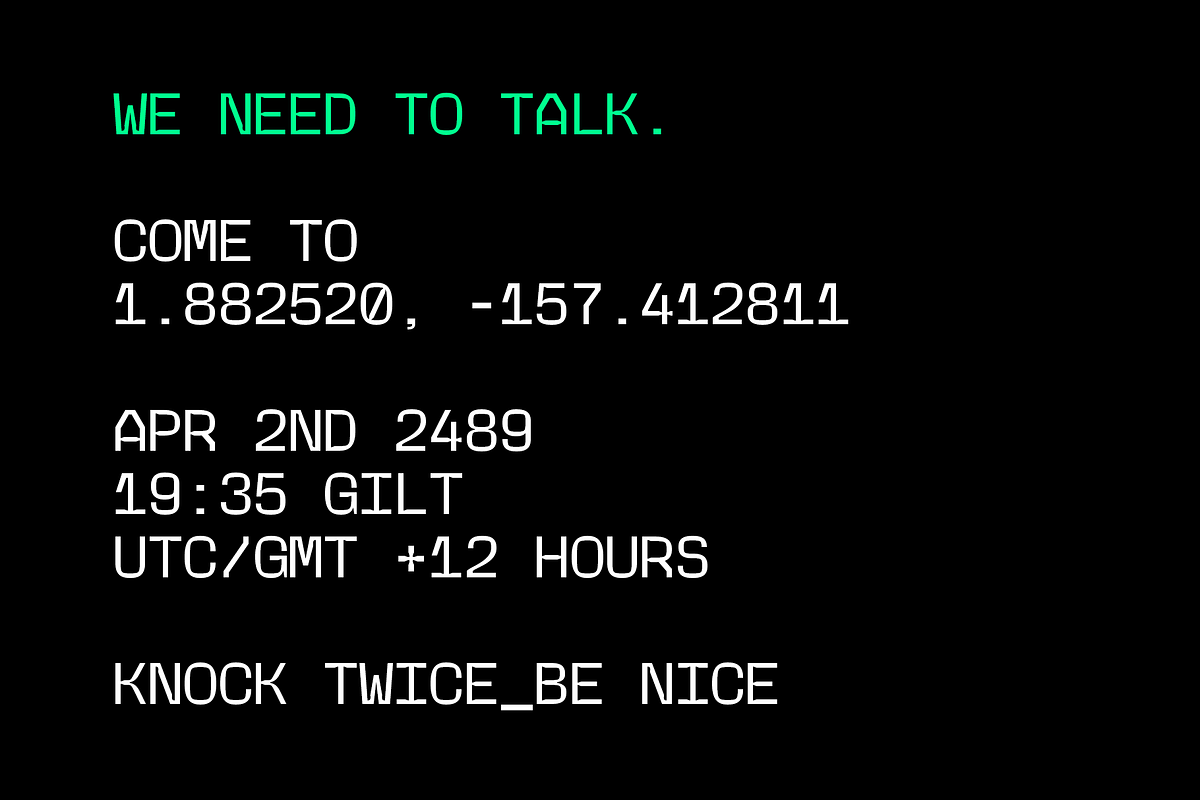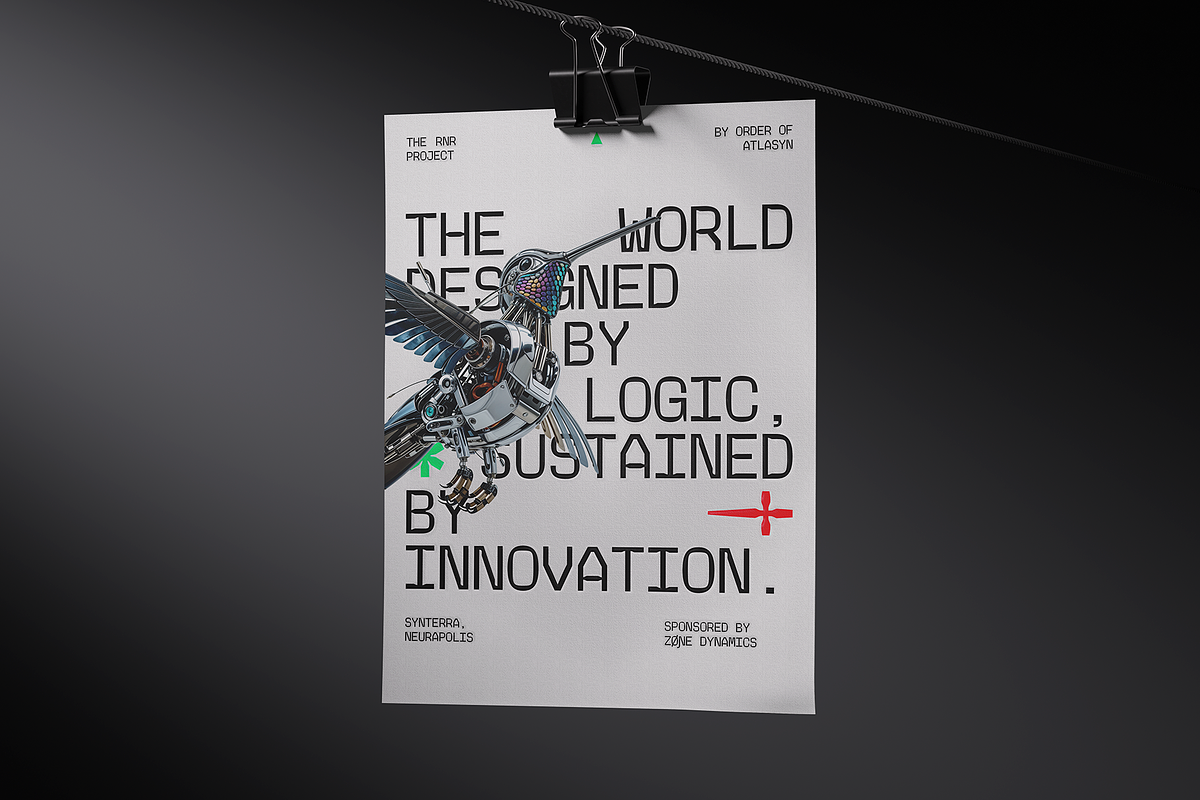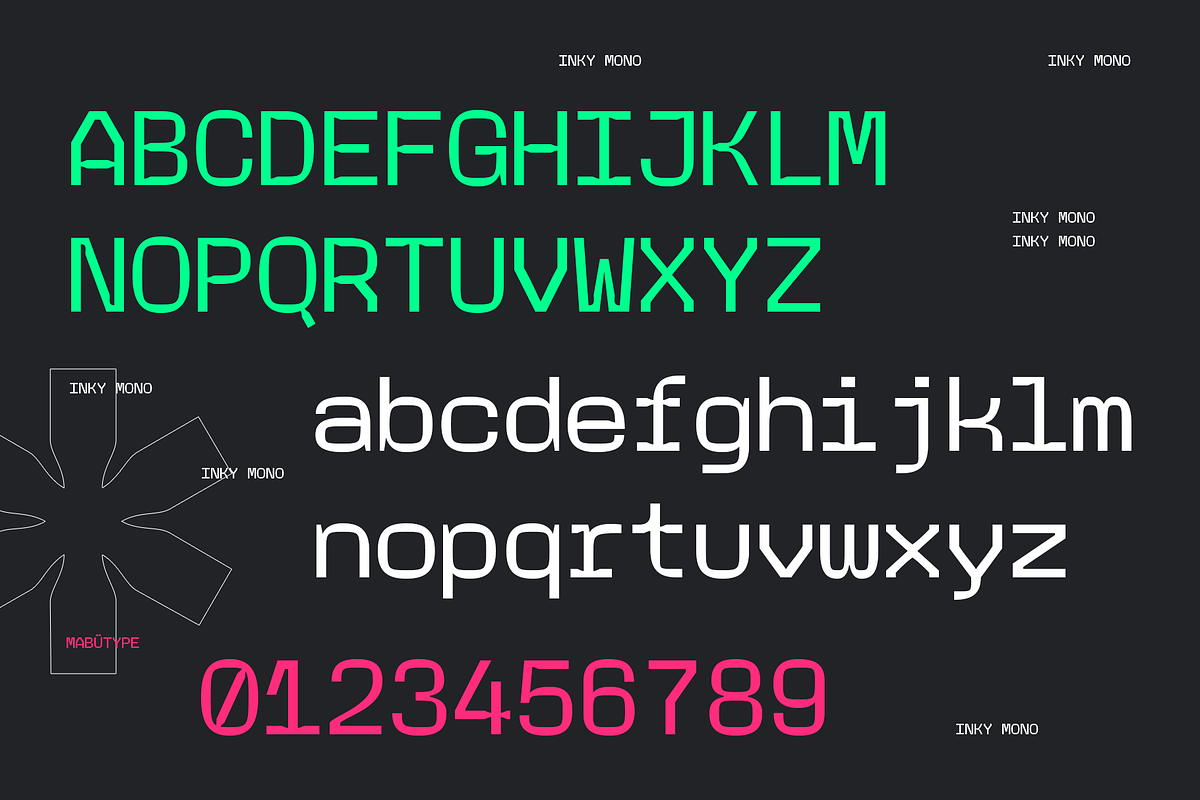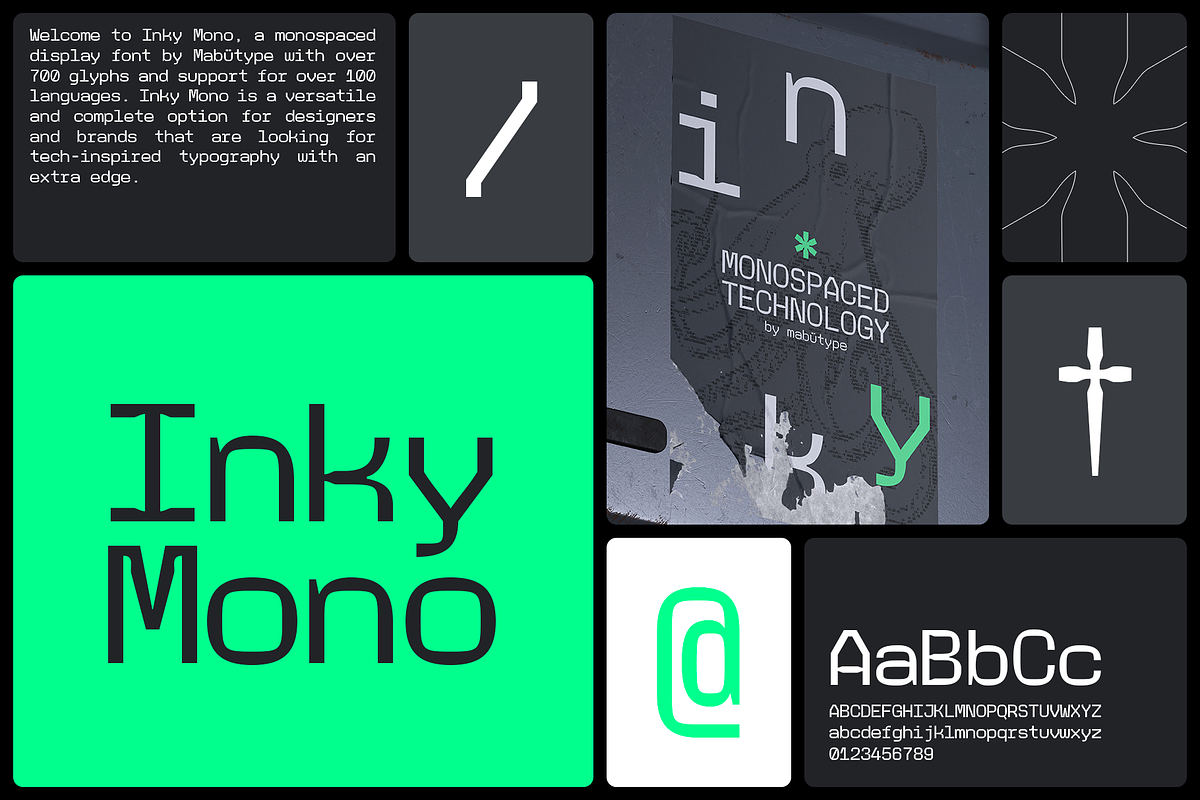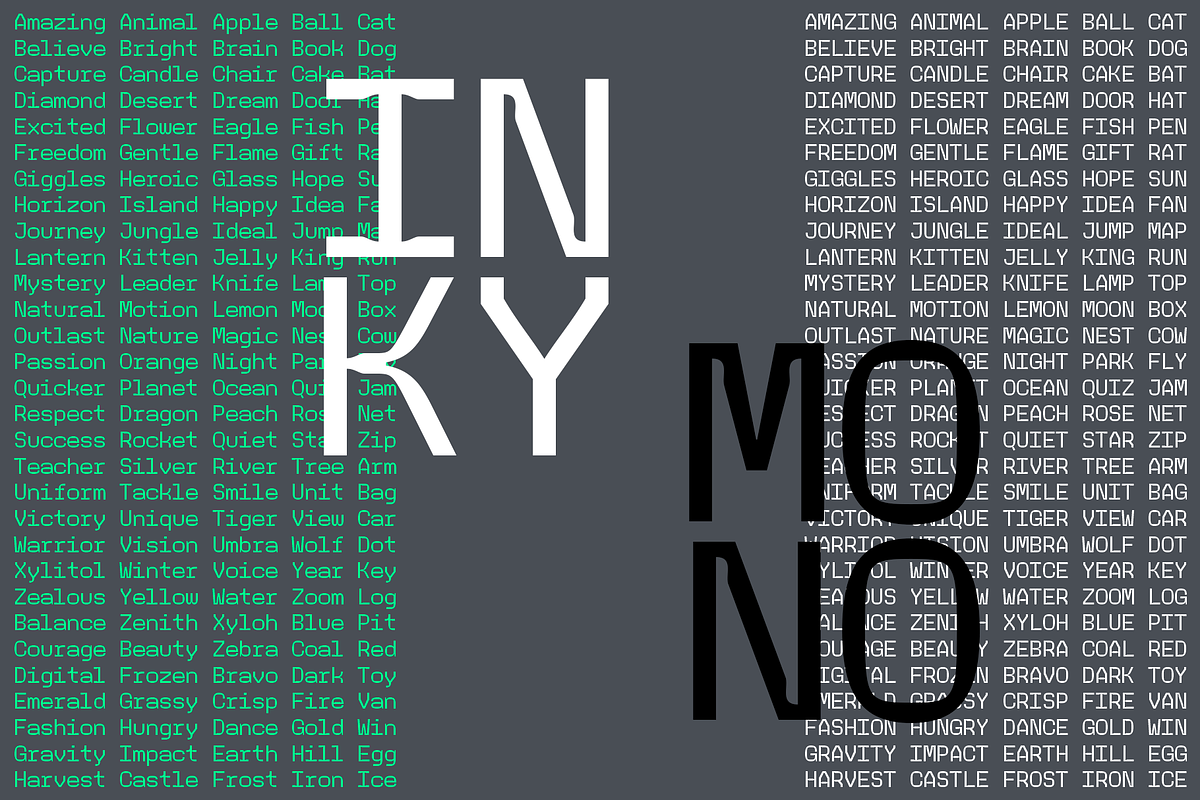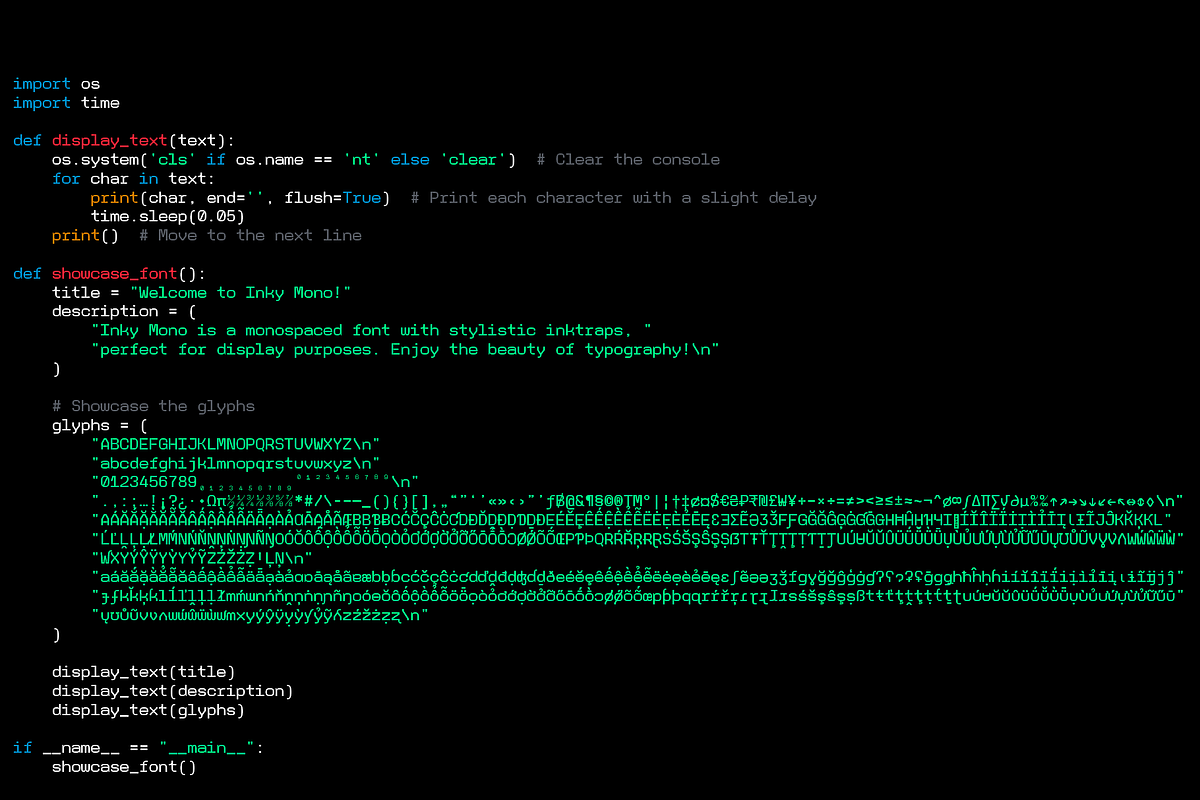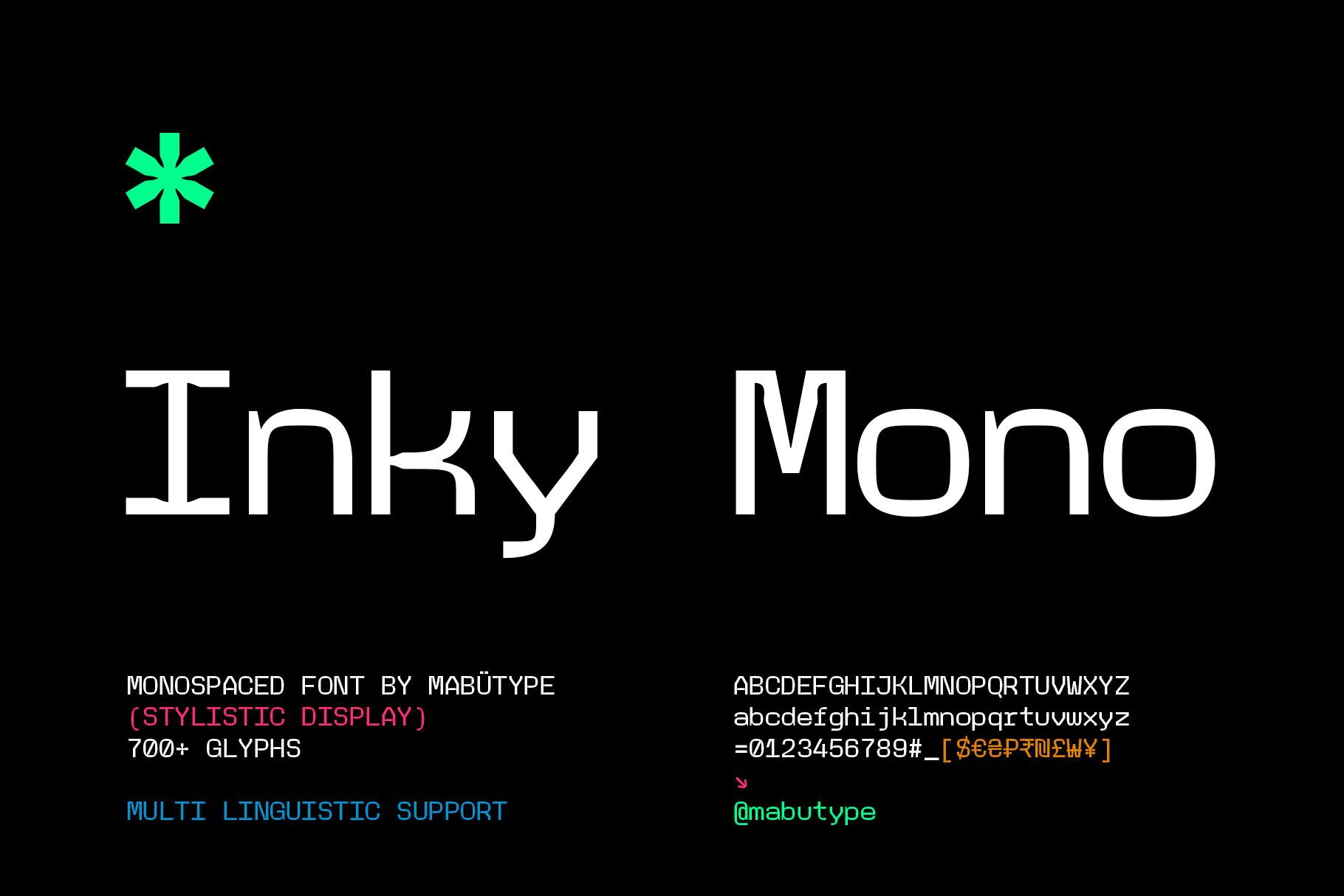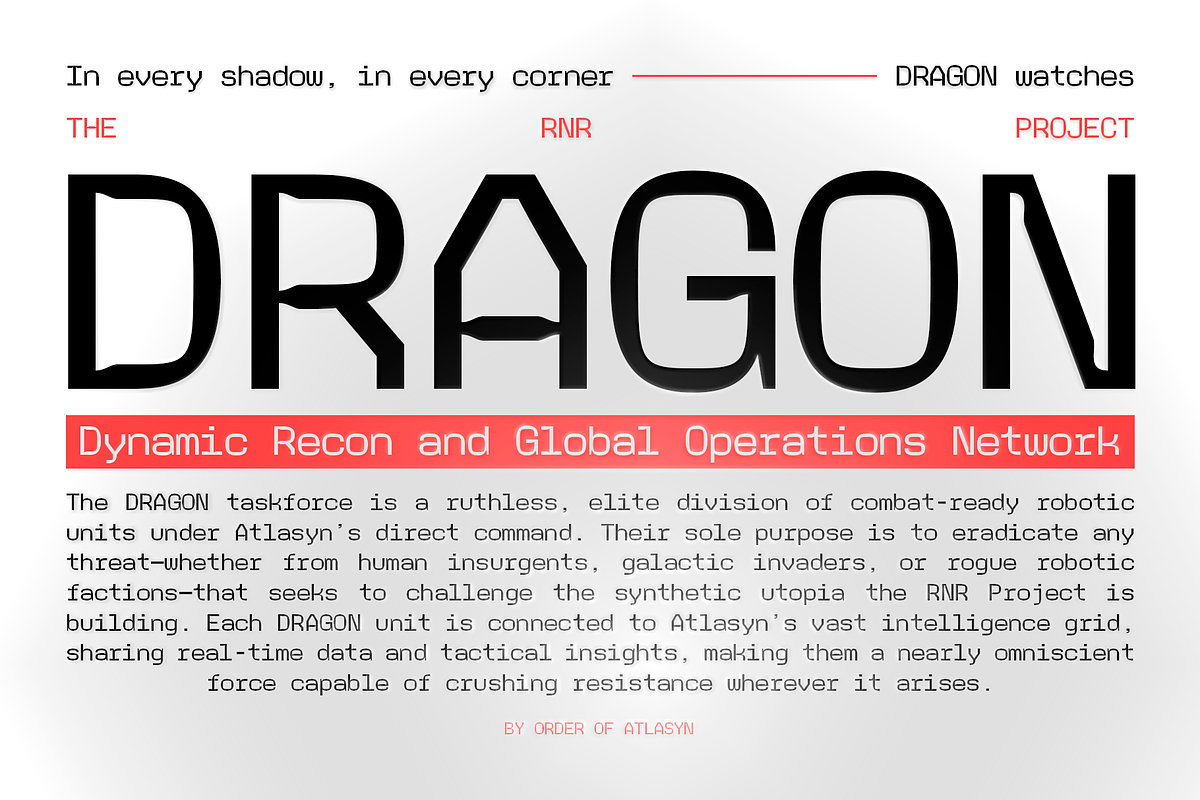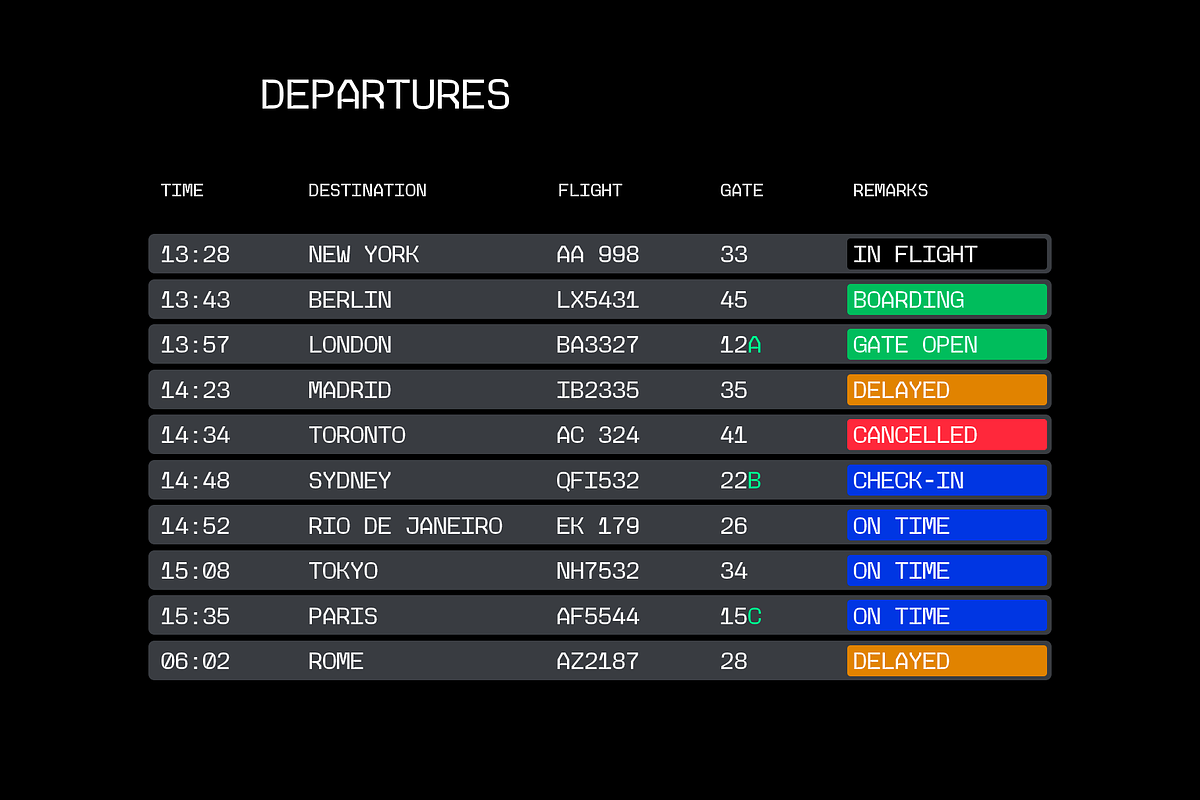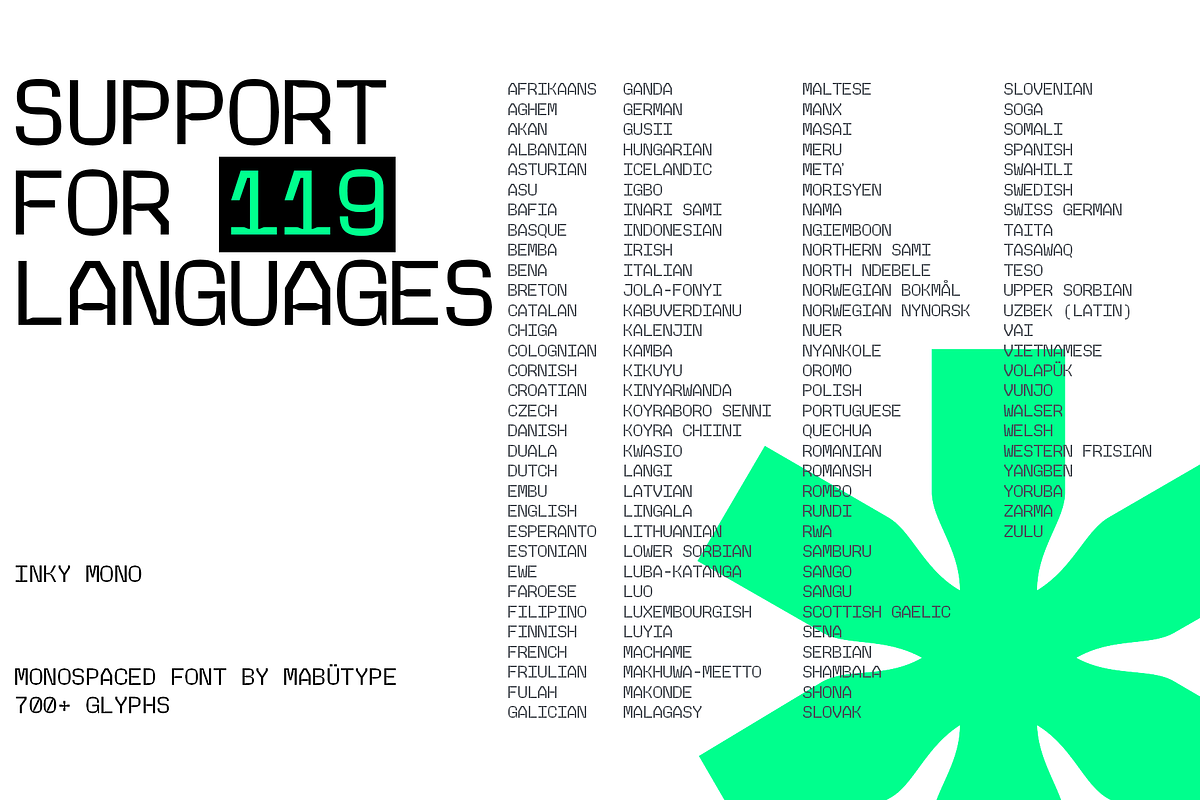
Inky Mono - Typeface
Welcome to Inky Mono, a monospaced display font by Mabütype with over 700 glyphs and support for over 100 languages. Inky Mono is a versatile and complete option for designers and brands that are looking for tech-inspired typography with an extra edge.